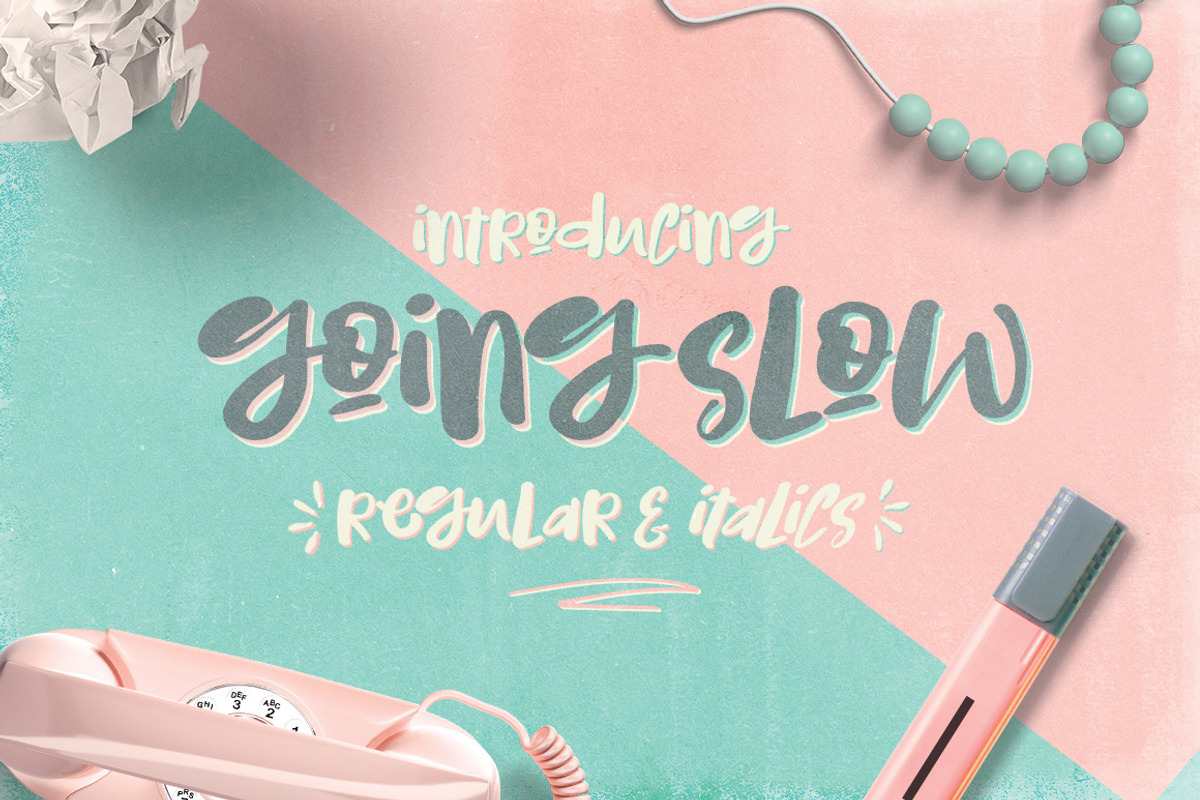
Going Slow Font Typeface
Going Slow Font Typeface by Creativeqube Design is a font selected for branding, posters, packaging, typography.
- Please meet - Going Slow - a brand new awesome mixed upper and lowercase font, plus an italic version.
Why Going Slow Font Typeface is worth a look
Going Slow Font Typeface by Creativeqube Design fits naturally into Branding, posters, packaging, typography.